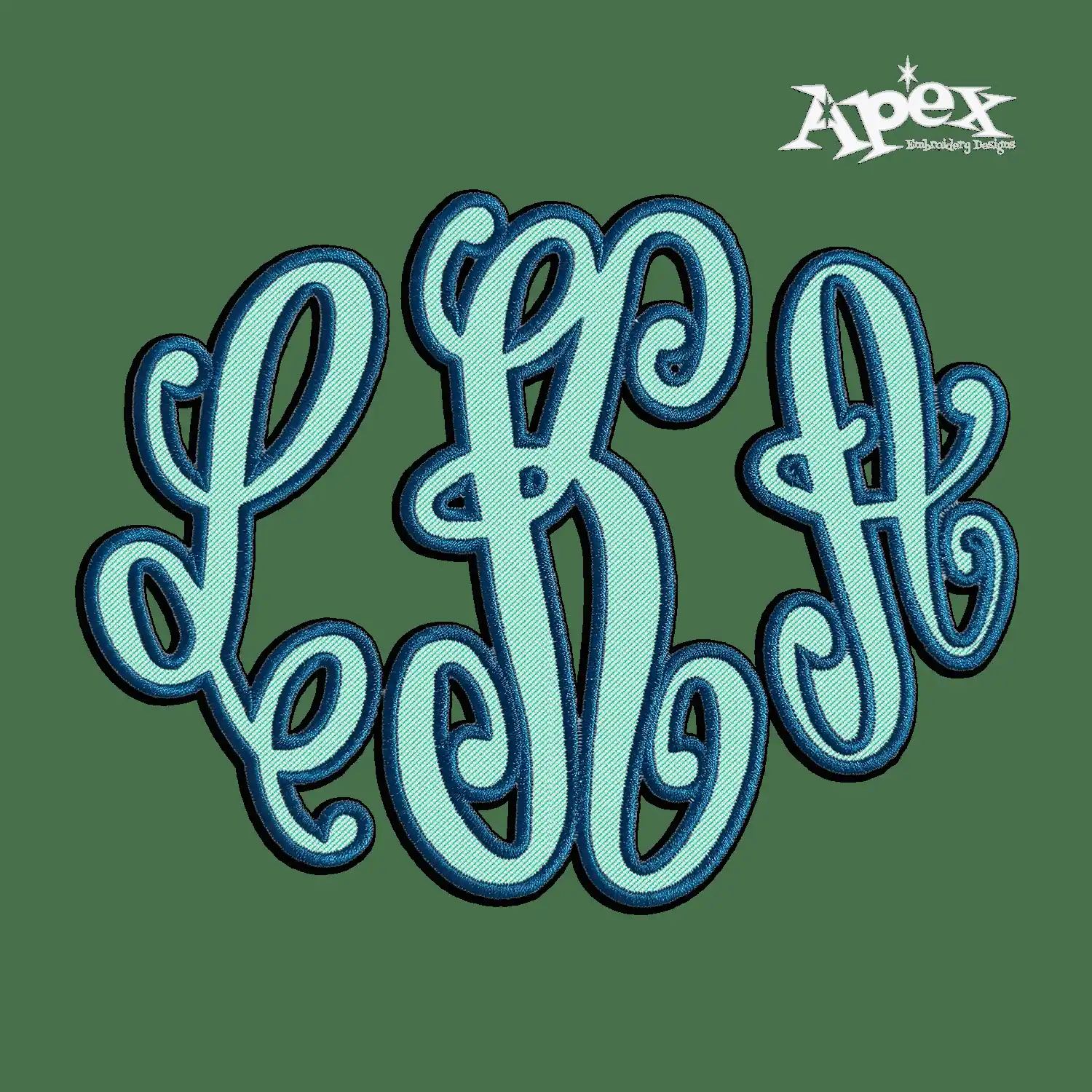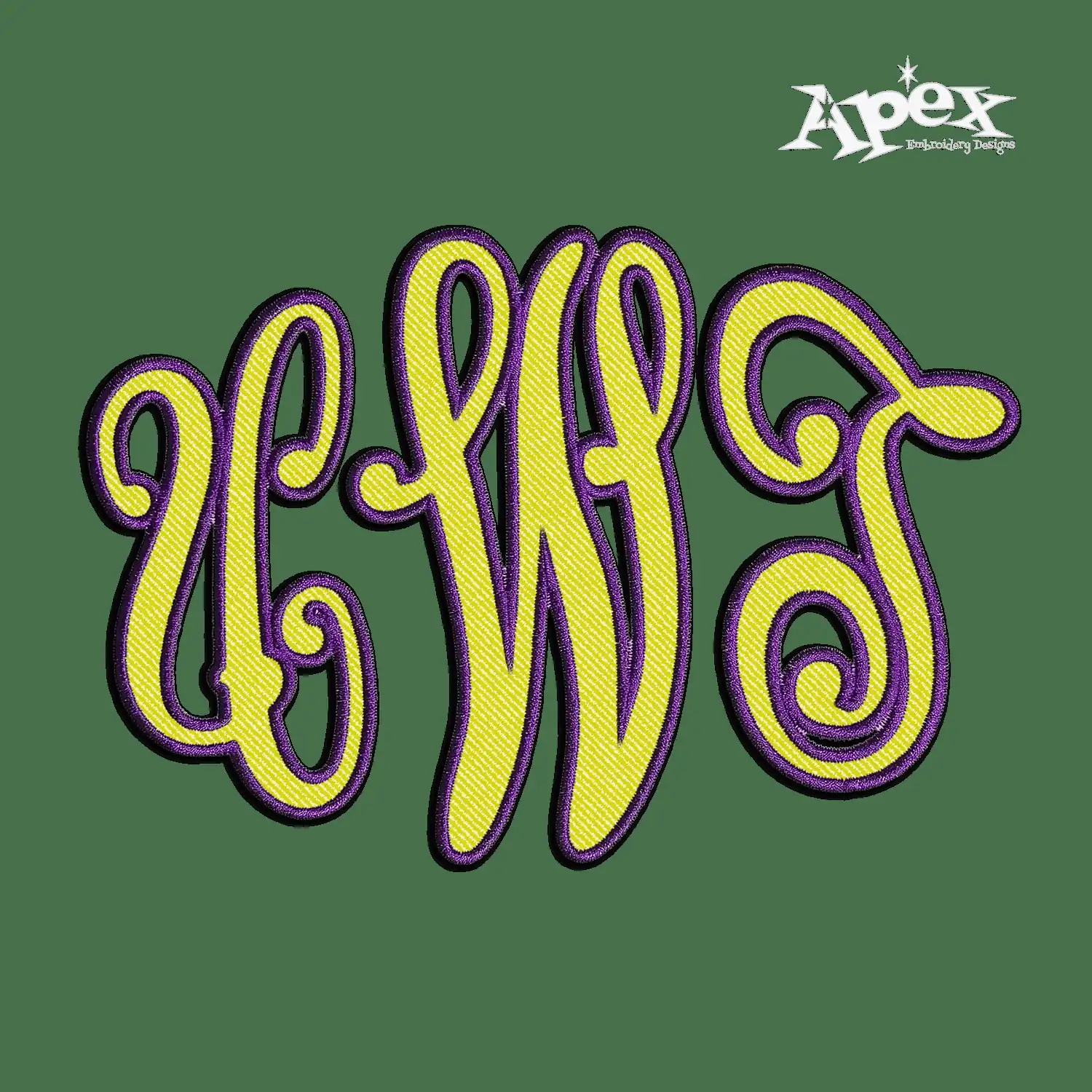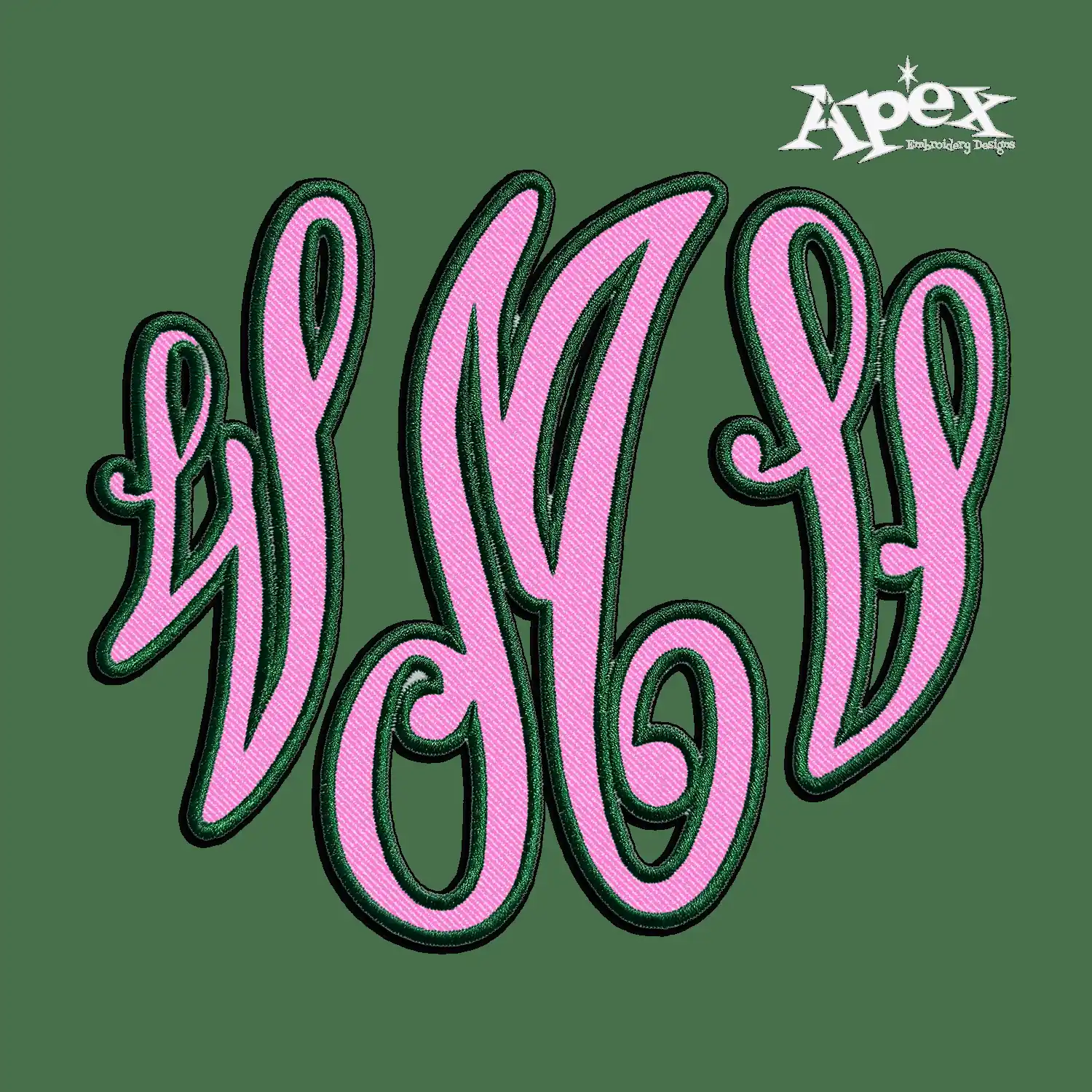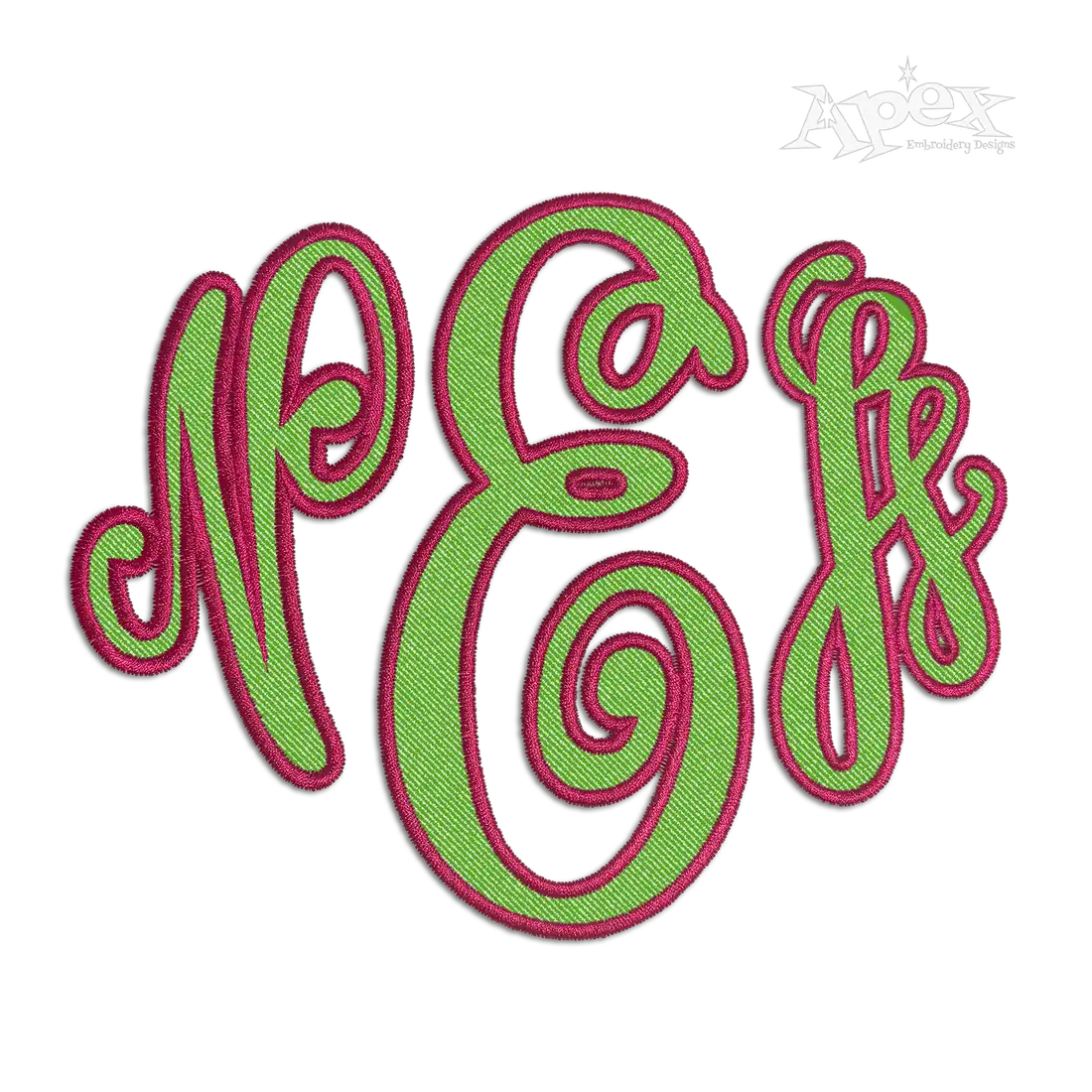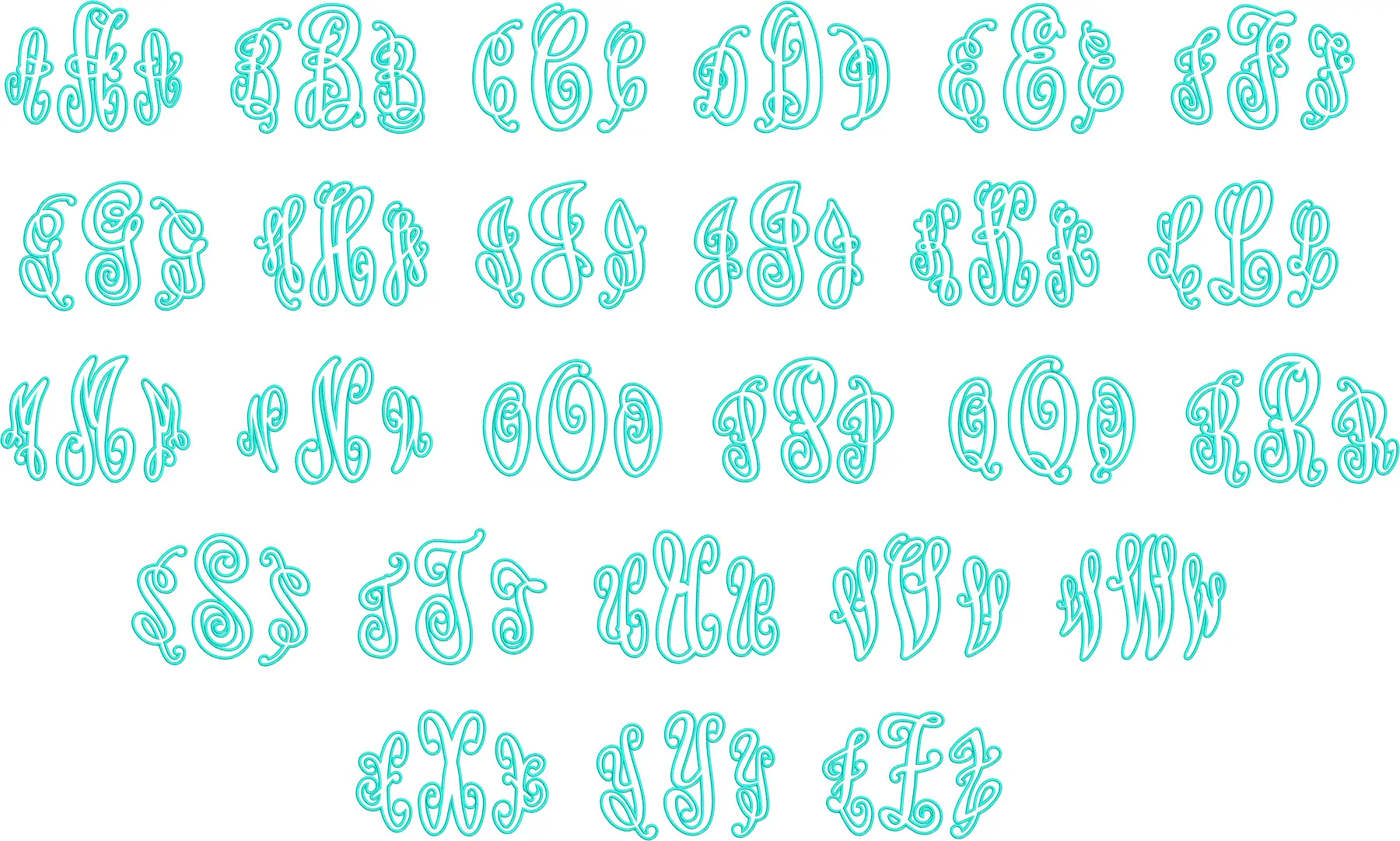
Curlz Fun Applique Embroidery Font
When digitizing the Curlz Fun Applique font, we set out to capture a spirit of uninhibited playfulness and breezy charm. Every dancing curl, spring-coiled terminal, and whimsical loop was sculpted with intention, creating generous open windows designed to showcase favorite fabric prints, vintage seersuckers, and vibrant ginghams. This alphabet moves past conventional lettering into pure textile celebration, balancing cheeky movement with the clean, tailored discipline required of heirloom-grade appliqué embroidery.
Engineered for seamless trio monogramming as well as bold standalone statement letters, this collection includes three distinct alphabetic sets across three generous scale options:
- Three Letterform Sets: Complete 26-letter alphabets for Small Left, Small Right, and Big Center monograms.
Curlz Fun Applique Craft & Letterform Details
Translating dynamic, bouncy swashes into appliqué demands sophisticated stitch architecture. Many decorative fonts feature erratic curves that pinch fabrics or leave weak corners; our digitizing process remedies this with meticulously balanced stitch angles and carefully calibrated pull compensation. Each letter begins with a crisp running-stitch placement guide, followed by a secure cut-line tack-down that holds base fabrics taut without puckering delicate cottons.
The perimeter is finished with a satin stitch border that navigates every coil and hairpin turn effortlessly. The densities are fine-tuned to seal raw fabric edges cleanly, eliminating frayed threads while keeping the outlines supple rather than stiff and rigid. The resulting embroidery delivers lush, tactile borders that frame your fabric selections with brilliant shine and lasting durability.